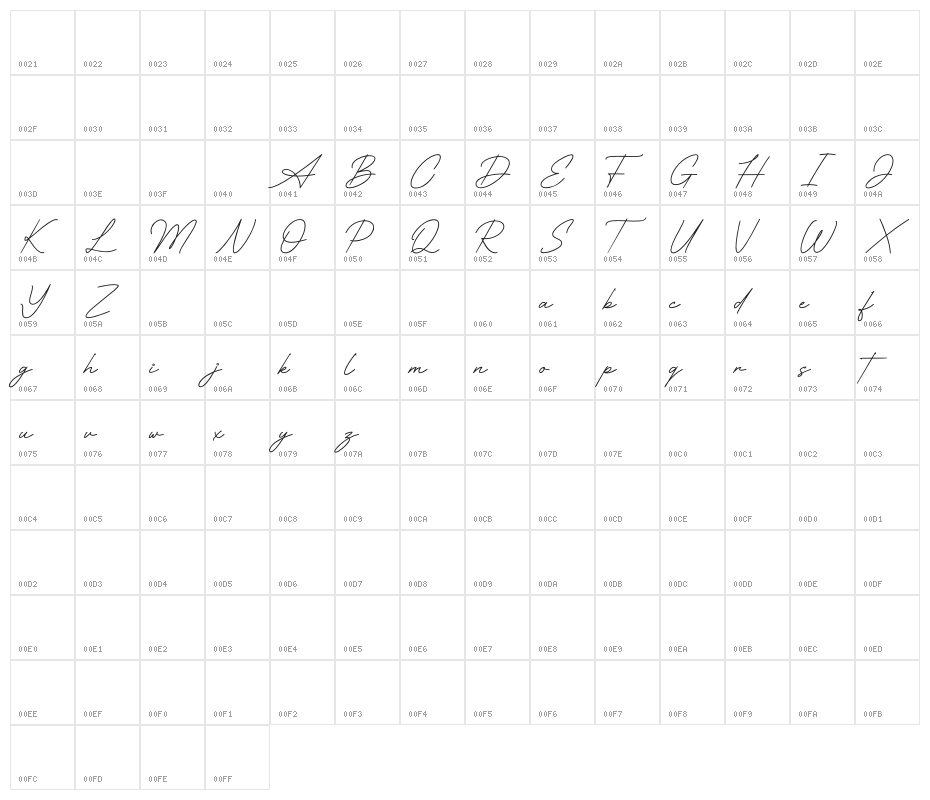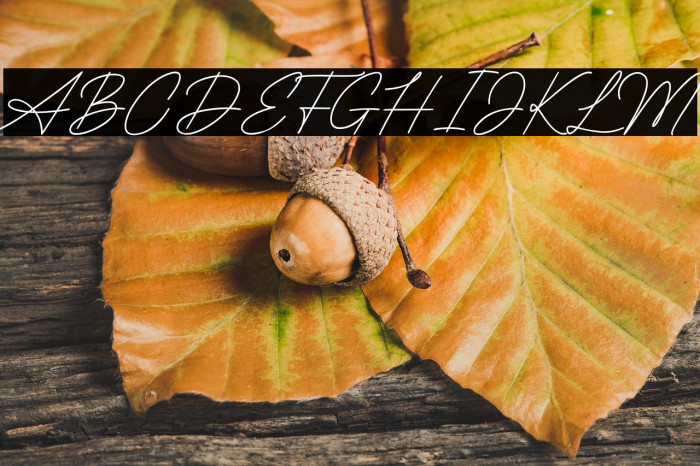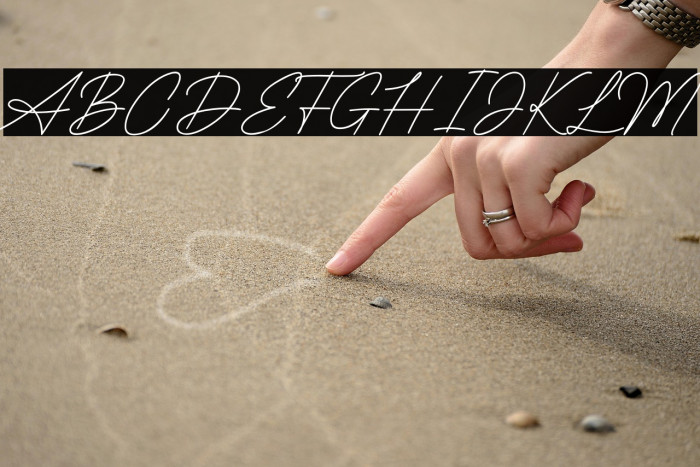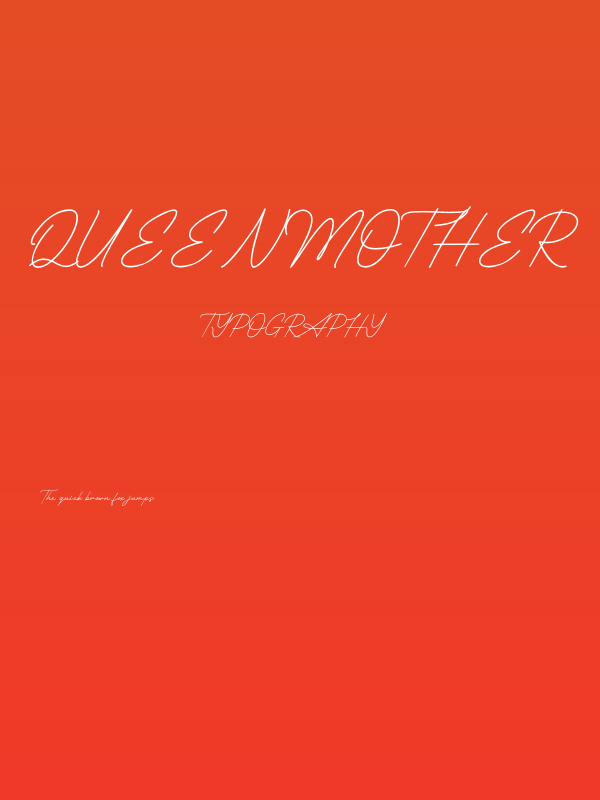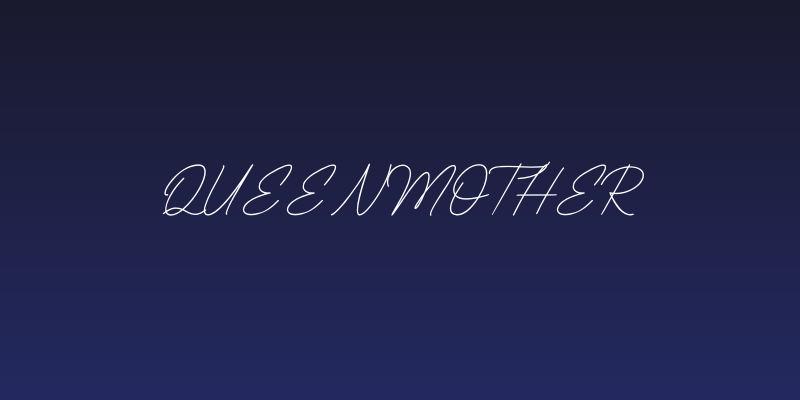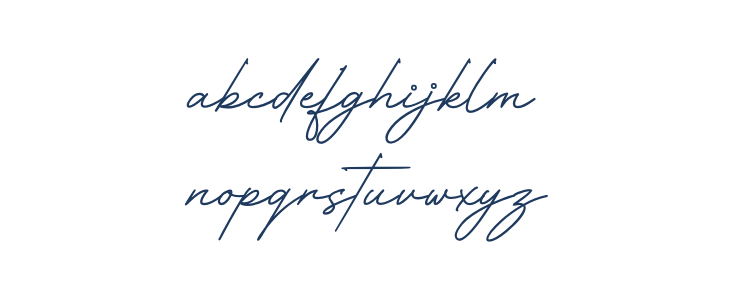
QueenMother Font
QueenMother Description
This elegant script font features a flowing, cursive style that mimics the fluidity of natural handwriting. The uppercase letters are gracefully elongated, with sweeping curves and delicate loops that convey a sense of sophistication and refinement. The lowercase letters maintain a consistent slant, enhancing the font's cohesive appearance. Each character is meticulously crafted, with smooth transitions and balanced proportions, making it ideal for creating a personal and stylish touch. The font's thin strokes and subtle variations in line thickness add a touch of delicacy, while maintaining readability. This font is perfect for projects that require a touch of elegance and personal flair.
| Overall Style | Elegant |
| Use Case | Logos, Invitations, Personal Branding |
| Proposed Projects | Ideal for wedding invitations, personal branding, greeting cards, and elegant stationery. |